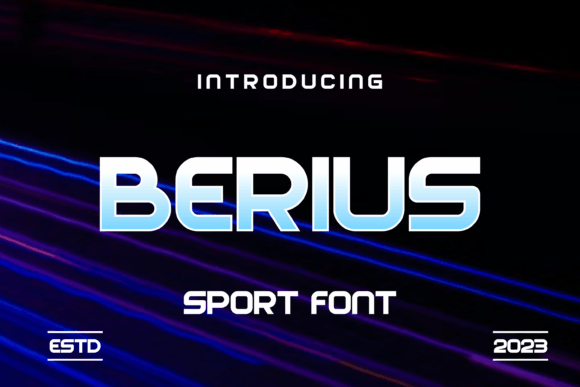
Introducing Berius Font, the ultimate game-changer for your small display designs! Prepare to be captivated by its remarkable ability to transform ordinary text into an extraordinary visual spectacle. Unleash your creativity and let Berius take center stage, leaving a lasting impression on your audience.
Crafted with meticulous attention to detail, Berius is not just a font; it's an experience. Its distinct and slightly quirky personality adds a touch of intrigue to any design, demanding attention and igniting curiosity. Whether you're creating captivating headlines, eye-catching logos, or dynamic social media posts, Berius will elevate your designs to new heights.
With its remarkable versatility, Berius thrives in a myriad of contexts. Imagine your brand's name emblazoned in bold Berius, commanding attention and exuding a sense of authority. Craft captivating headlines that jump off the screen, drawing your audience into your compelling stories. Design social media posts that radiate personality and charm, leaving a lasting impression on your followers. The possibilities are endless with Berius as your creative companion.
But what truly sets Berius apart is its unwavering clarity and legibility, even at the smallest sizes. Its meticulously crafted letterforms ensure that your message is delivered with crystal-clear precision, ensuring maximum impact and engagement. No matter how small the display, Berius shines through, delivering your message with unwavering clarity.
Don't settle for ordinary fonts that blend into the background. Embrace the extraordinary with Berius, the font that captivates, engages, and leaves a lasting impression. Experience the transformative power of Berius today and elevate your designs to new heights!